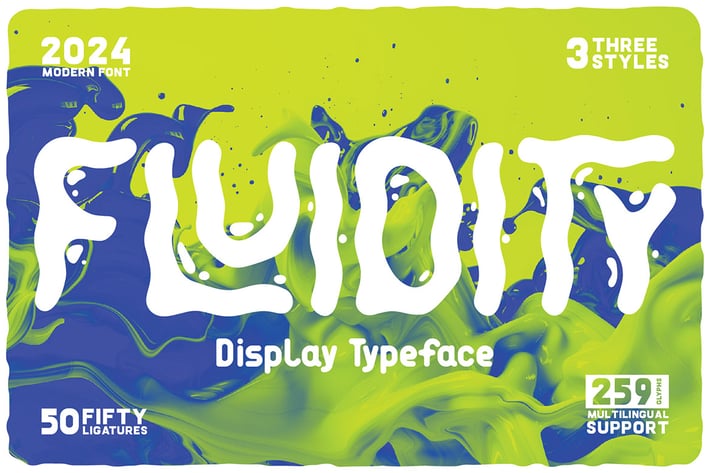
Fluidity Display Font
Unique, playful, bubbly, rounded, artistic & handwritten font. Comes with multilingual support & 3 font versions - great for your new logo or branding project.
- 3 font versions
- Multilingual support & ligatures
- Great for artistic style branding projects